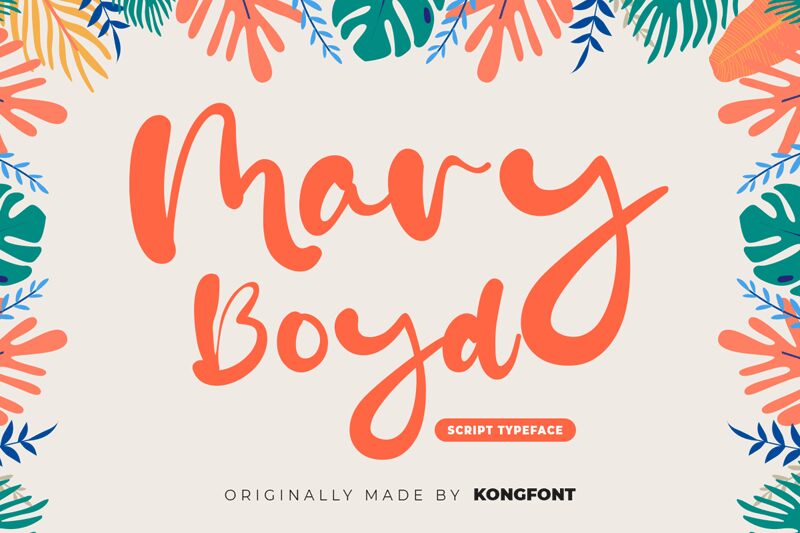
Mary Boyd
Mary Boyd is a stunning semi-bold font designed by Kong Font. Its smooth brush style creates a unique and elegant look, perfect for projects that require a touch of sophistication. With its versatile weight, Mary Boyd is suitable for various design projects such as branding, packaging, invitations, posters and more. Its smooth and flowing strokes give the font an organic feel that can add warmth to your designs. Whether you're creating a logo or designing a wedding invitation, Mary Boyd will elevate your project with its sleek and contemporary aesthetic.